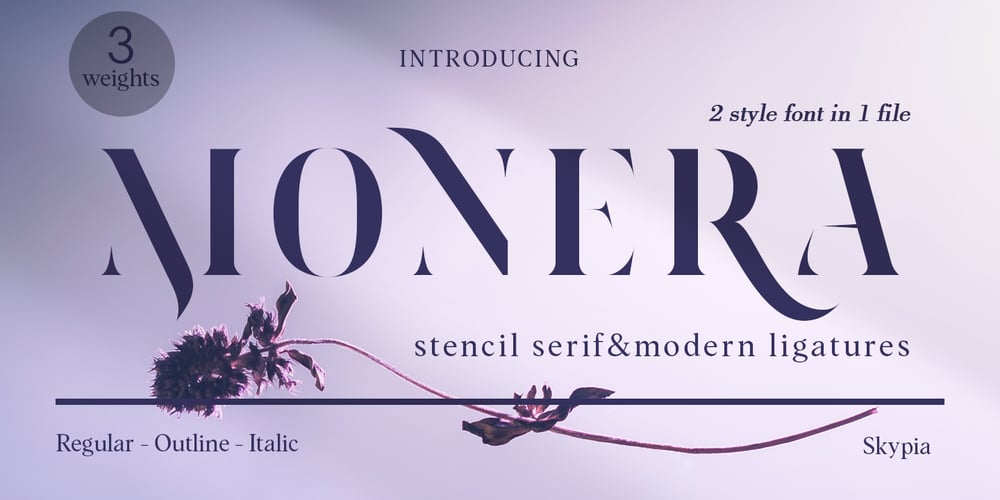
Monera
Monera font
Monera Font Family was designed by Fajarisha Phonna and published by Skypia. Monera contains 3 styles and family package options. Monera is a new elegant stencil & modern serif font featuring a regular,outline & italic version.Its luxurious lines will work perfectly for any sophisticated design project. Perfect for luxury product packaging, labels, branding, advertising & much more.Monera includes all standard glyphs plus a few essential ligatures as well as multilingual characters.Unique, playful and versatile serif family with 69 ligatures and 94alternates to beautify the design you like. This font is perfect for branding projects, Logo design, Clothing Branding, packaging, magazine headings, advertising, T-shirts, postcards and much more. Thank you, Skypia